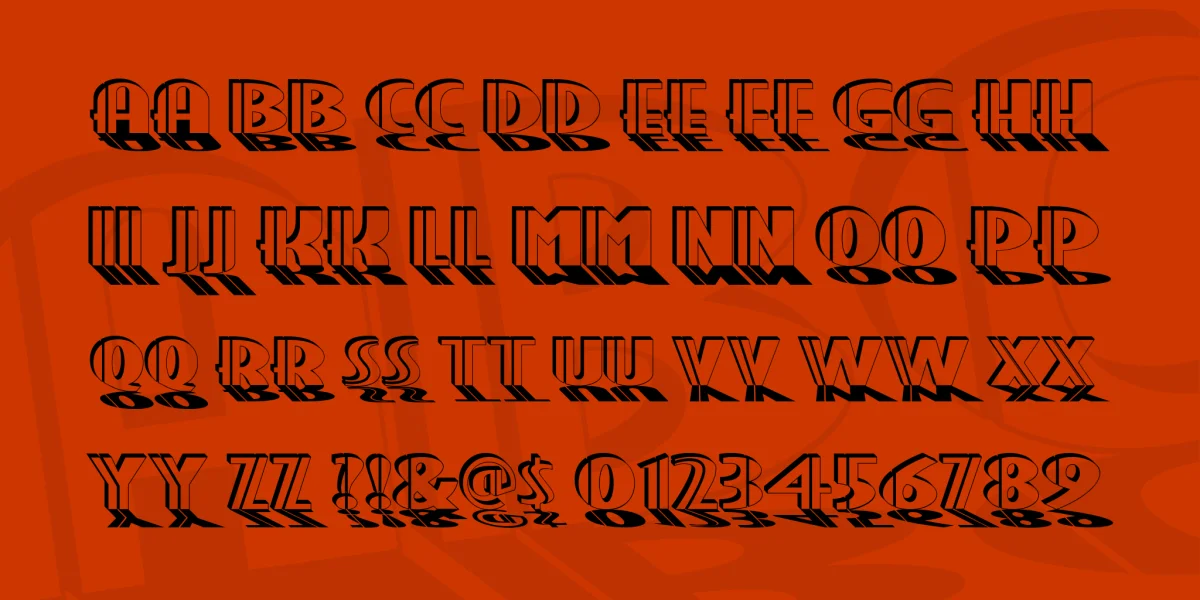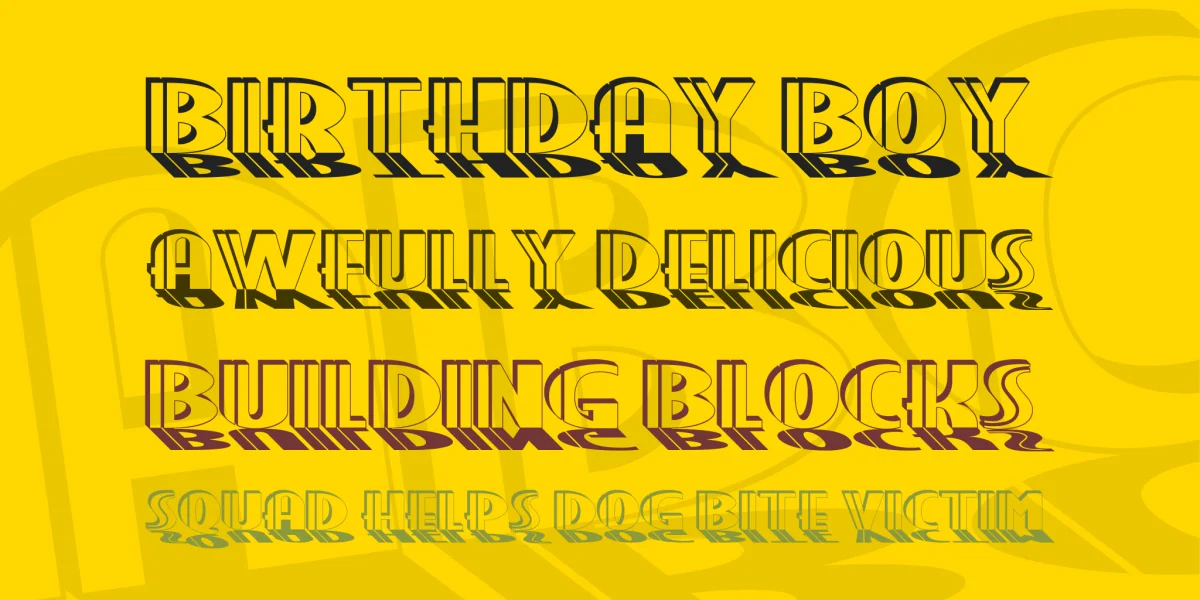
The letterforms are based on Gill Sans Bold Extra Condensed, squashed flatter than a June bug, then pinstriped, extruded and given a cast shadow as if lit from the rear. Suitable for announcing grand openings and other spectacular events.